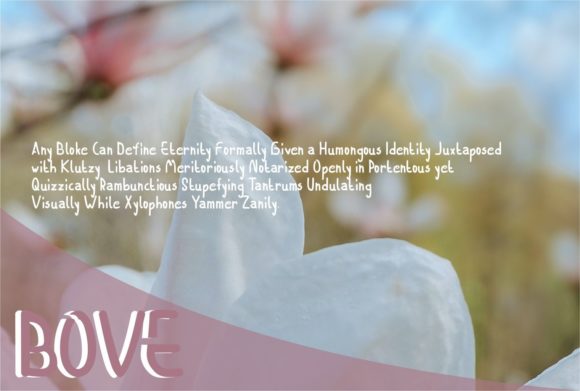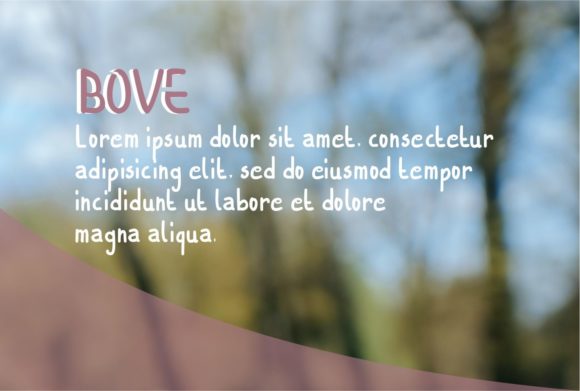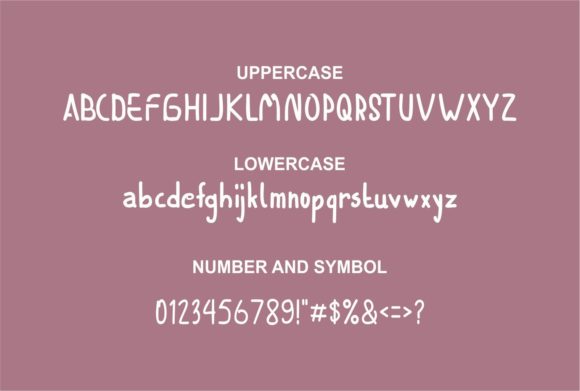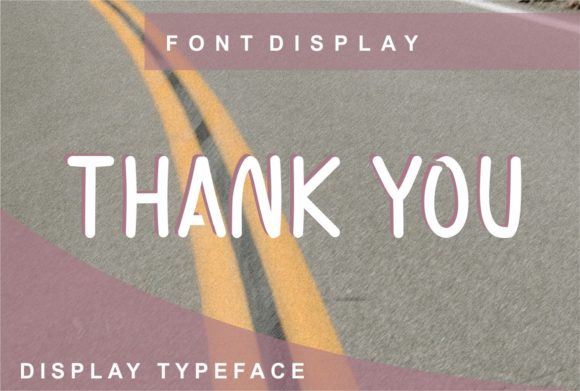
Unlock the Power of Bove Font
Have you ever stared at a blank page, struggling to find the perfect words to express your creative vision? You’ve tried different phrases, rearranged the layout, and even changed the font – but nothing seems to capture the essence of your idea. That’s where the Bove Font comes in – a clean and adaptable display font designed to elevate your creations and make your message shine.
Whether you’re a graphic designer, a writer, or a creative entrepreneur, the Bove Font is an invaluable asset to have in your font library. Its versatility and sleek design make it perfect for a wide range of projects, from advertising and marketing materials to social media posts and website designs. With the Bove Font, you’ll be able to convey your message with clarity and style, making it a valuable addition to any designer’s toolkit.
Bove Font Key Features
- Font Family: Bove Font is a modern sans-serif typeface designed for digital use.
- Resolution: Designed for high-resolution displays, Bove Font is suitable for use in digital media, including screens and print-on-demand products.
- Unique Characteristics: Bove Font features a clean and minimalist design with a focus on legibility and readability, making it ideal for body text and titles.
- Language Support: Bove Font supports a wide range of languages, including Latin, Cyrillic, and Greek scripts, making it a versatile choice for global design projects.
Bove Font Review
Overall, I’d say the Bove font has some great qualities that make it a solid choice for designers, but it also has some limitations that might hold it back.
- Unique aesthetic: Bove font has a distinct and quirky feel to it, which can be a great addition to designs looking for something offbeat.
- Legibility: Despite its unusual appearance, Bove font is actually quite readable, making it a good choice for body text or captions.
- Customization: The font comes in a range of weights and styles, allowing designers to tailor it to their specific needs.
- Overemphasis on flair: While the unique aesthetic of Bove font can be a strength, it can also be overwhelming in certain contexts.
- Limited use in formal contexts: Due to its playful, quirky feel, Bove font might not be the best choice for formal or professional designs.
- May require adjustments: Depending on the design, Bove font might need some tweaks to ensure it fits in seamlessly.
In conclusion, the Bove font is a solid choice for designers looking for a unique, playful aesthetic. However, its limitations might make it less suitable for formal or high-stakes designs.
The Bove Font is commonly used for:
- Headings and titles in branding and marketing materials.
- Body text in digital products and websites.
- Signage and wayfinding systems.
Alternatives to Bove Font
Oswald is a sans-serif font that is highly legible and versatile. It is perfect for use in titles and headings where a strong, modern look is desired. Oswald is a great alternative to Bove Font for designers who want a clean and simple font that still packs a punch.
Comparison: Oswald is more modern and geometric in design compared to Bove Font, which has a more traditional feel. While Bove Font is great for body text, Oswald is better suited for headings and titles.
Merriweather is a classic serif font that is perfect for use in body text where a traditional look is desired. It is highly legible and has a warm, inviting feel that is great for use in publications and websites. Merriweather is a great alternative to Bove Font for designers who want a more traditional font that still looks modern.
Comparison: Merriweather is a more traditional font compared to Bove Font, which has a more modern feel. While Bove Font is great for headings, Merriweather is better suited for body text.